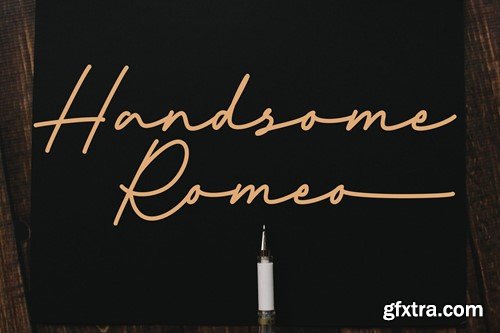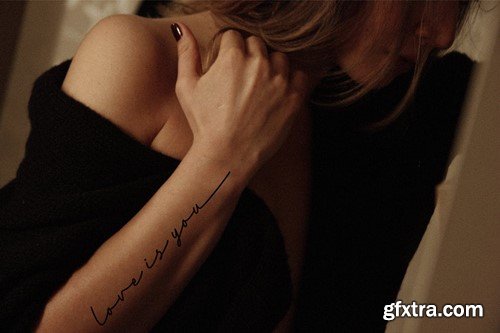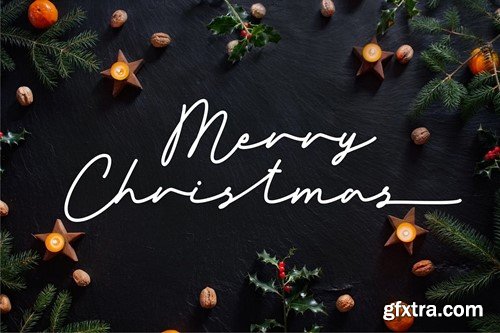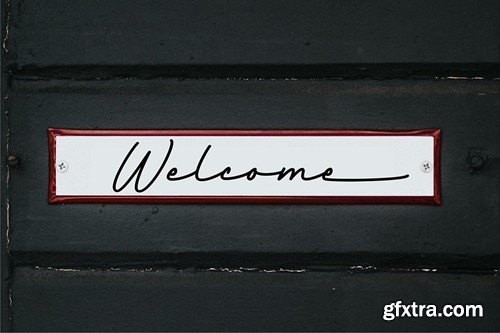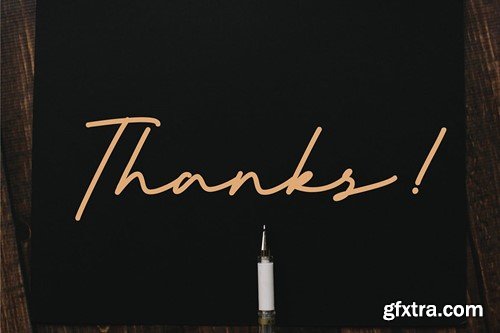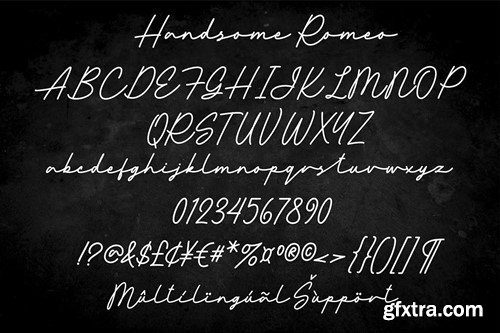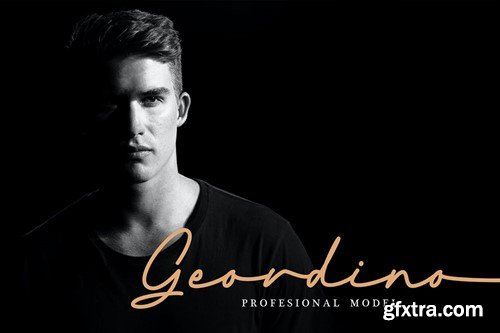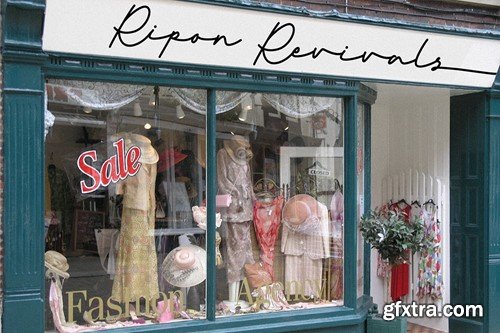
帅气罗密欧 - 精致签名字体 UEP9QTE
Handsome Romeo - Elegant Signature font
Handsome Romeo is a Elegant Signature font, Like making a quick signature, it has a elegant, classy look and beauty. Handsome Romeo is great for wedding invitation card designs, advertisements, product designs, stationery, product packaging, quotes , brand logo ,posters and so on. Handsome Romeo font files with OTF and TTF file and support PUA Encoded font files for use with software that doesn't support OpenType features such as Silhouette, Inkscape, etc.